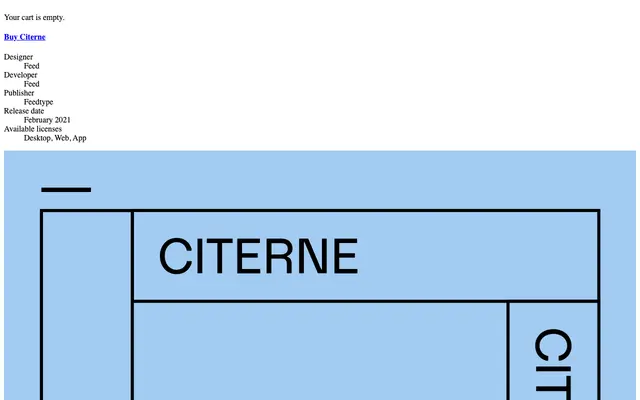
Citerne
A display sans from Canadian foundry Feedtype, designed for headline and identity work.
Citerne is a display sans-serif from Feedtype, a Canadian type foundry. The face is oriented towards headline, poster and branding applications where a distinctive sans character is required. Details beyond the basic family structure were not available from the page content provided.
Citerne appears to be a display-oriented sans-serif with a distinctive, expressive character suited to headline and branding use rather than extended text setting.